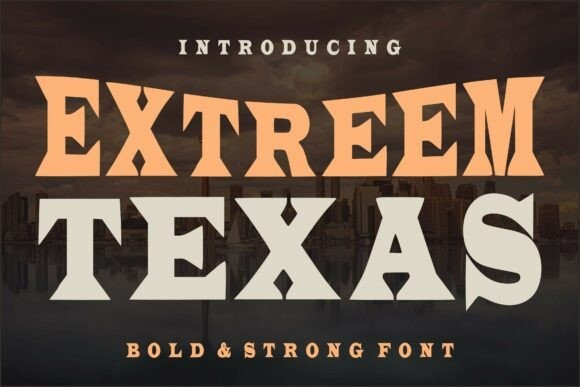
Extreeme Texas Font
Extreeme Texas Font is a powerful and eye-catching display font inspired by classic western and vintage cowboy typography. Featuring bold letterforms with sharp edges and strong character, this font is perfect for designs that need a rugged, masculine, and standout look.
Ideal for branding, posters, logos, t-shirt designs, signage, and any project that needs a western or vintage Americana feel. Extreeme Texas brings strength and personality to every design.